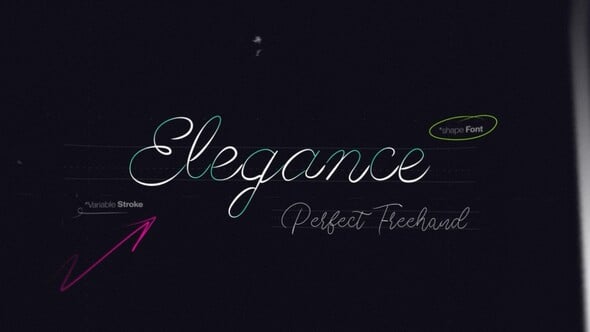
Elegant Text Write-On Tool | 7 Custom Shape Fonts with Perfect Freehand Scribble Animation
7 Elegant Graceful, flowing cursive fonts suited for classy, upscale branding and sophisticated titles.
Animating write on Text has never been easier.
Control over timing, style, and dynamic effects — all without keyframes or complex rigs.
7 Custom Write On “shape Fonts”.
80 Custom Dynamic Drag And Drop Scribbles.
Type your text and animation builds automatically.
Consolidated into a Single editable vector layer.
Unique feature in after effects that has never been done before!
Animating write on Text has never been easier.
Control over timing, style, and dynamic effects — all without keyframes or complex rigs.
A powerful tool that let you fine-tune animated Scribbles without keyframes.
Quickly adjust animation speed, delay, and easing.
Simply Drag the Layers In Out Points To Adjust Responsive Duration.
Enable Animate In and Animate Out with per-stroke randomness.
Fine-tune stroke width, color, tracking, and tapering.
Add dynamic stroke wave distortion with full control.
No keyframes needed – everything auto animated!
No Manual Tracing or Masking.
Custom FX Controls
Dynamics
Speed: Speed of the animation.
Delay: Delay between strokes or letters.
Easings: Stop Motion, Ease Per Letter, or Uniform Ease.
Random Order: Randomizes stroke animation order.
Animate In: Enables entrance animation.
Animate Out: Enables exit animation.
Properties
Stroke Width: Controls stroke thickness.
Stroke Color: Sets the stroke color.
Tracking: Adjusts spacing between letters or elements.
Styling
Taper Start: Thinning at the start of strokes.
Taper End: Thinning at the end of strokes.
Taper Offset: Shifts tapering across stroke.
Extra
Wave Amount: Adds dynamic wave distortion.
Wave Length: Controls how wide the wave is.
Wave Phase: Offsets the wave position.